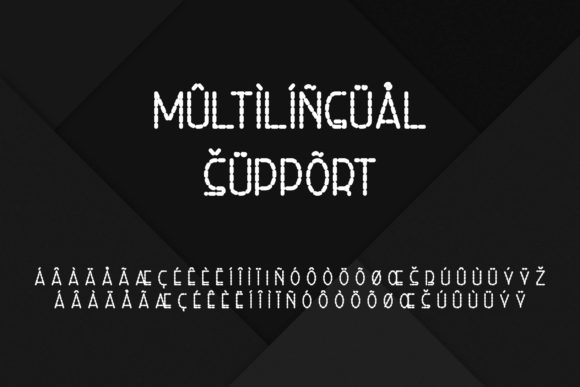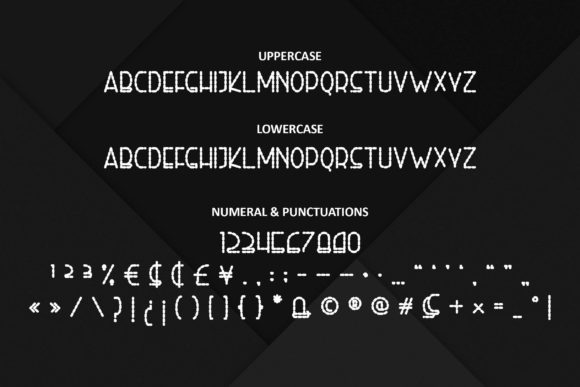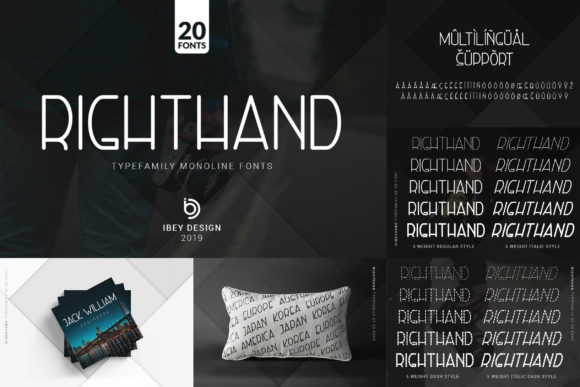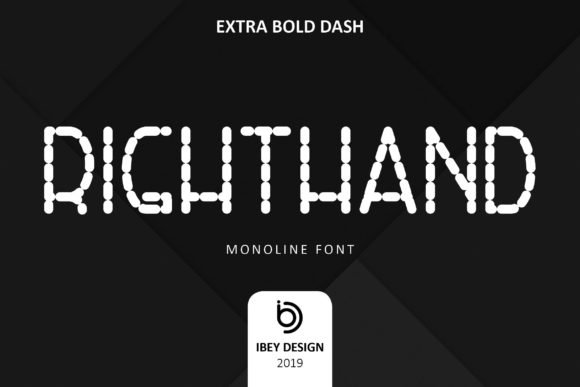
Introduction to Right Hand Exta Bold Dash Font
Right Hand is a modern monoline font featuring a single line style.
It’s perfect for crafting, photography, watermark, social media posts, advertisements, logos & branding, invitations, product designs, labels, stationery, product packaging, and special events .
Key Features of Right Hand Exta Bold Dash Font
Why Choose Right Hand Exta Bold Dash Font?
Right Hand Exta Bold Dash Font offers exceptional quality and versatility, making it a valuable addition to your design toolkit. Whether you’re creating for personal projects or commercial use, Right Hand Exta Bold Dash Font delivers professional results.